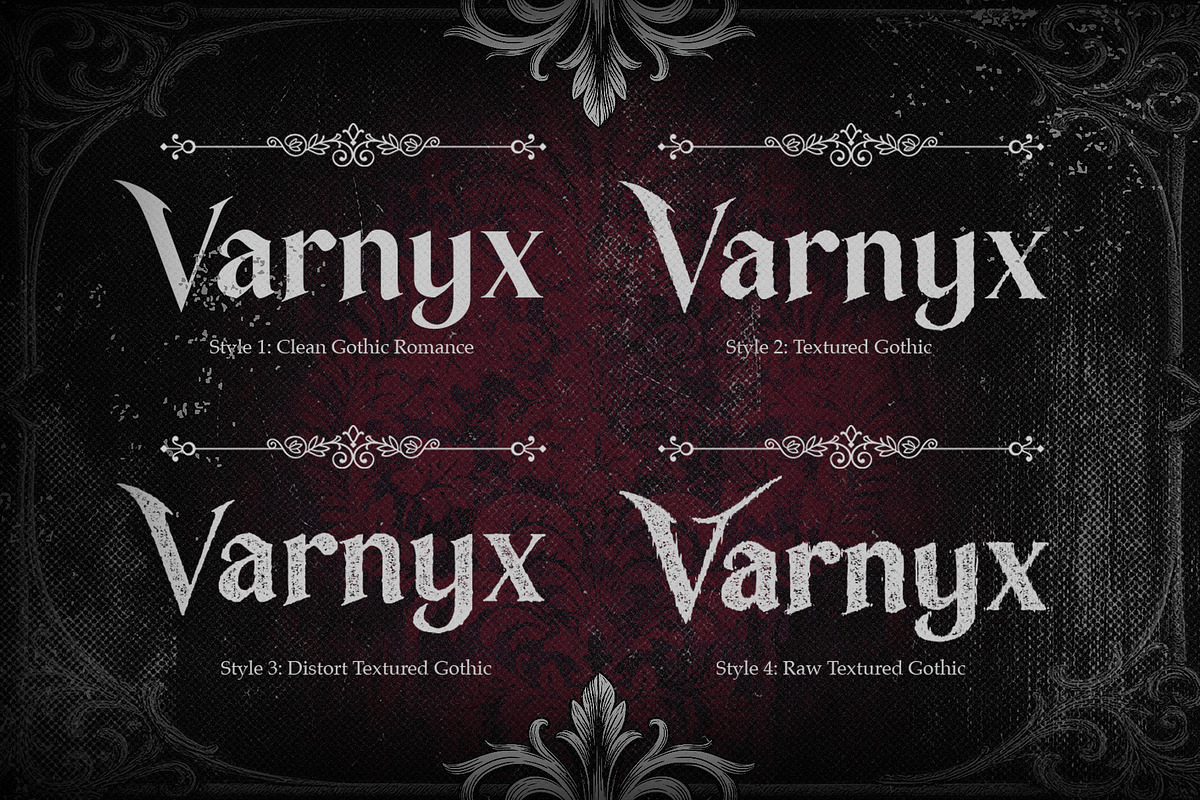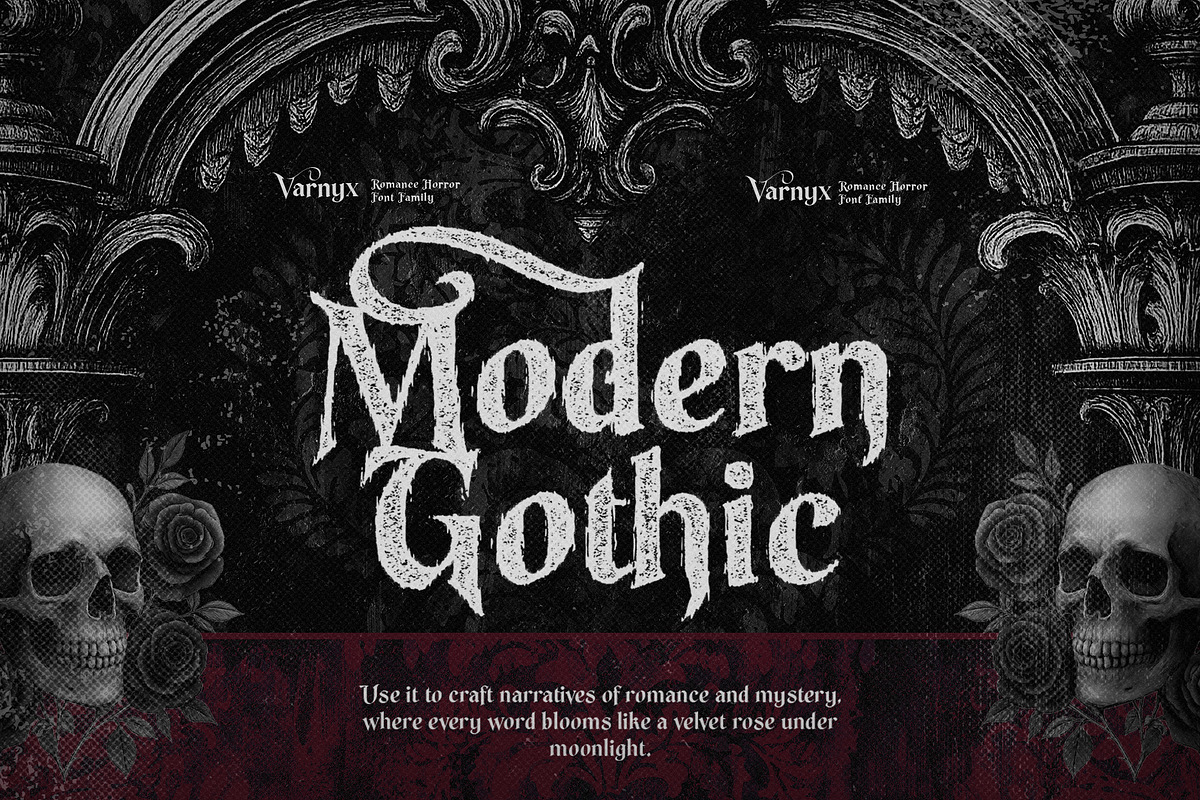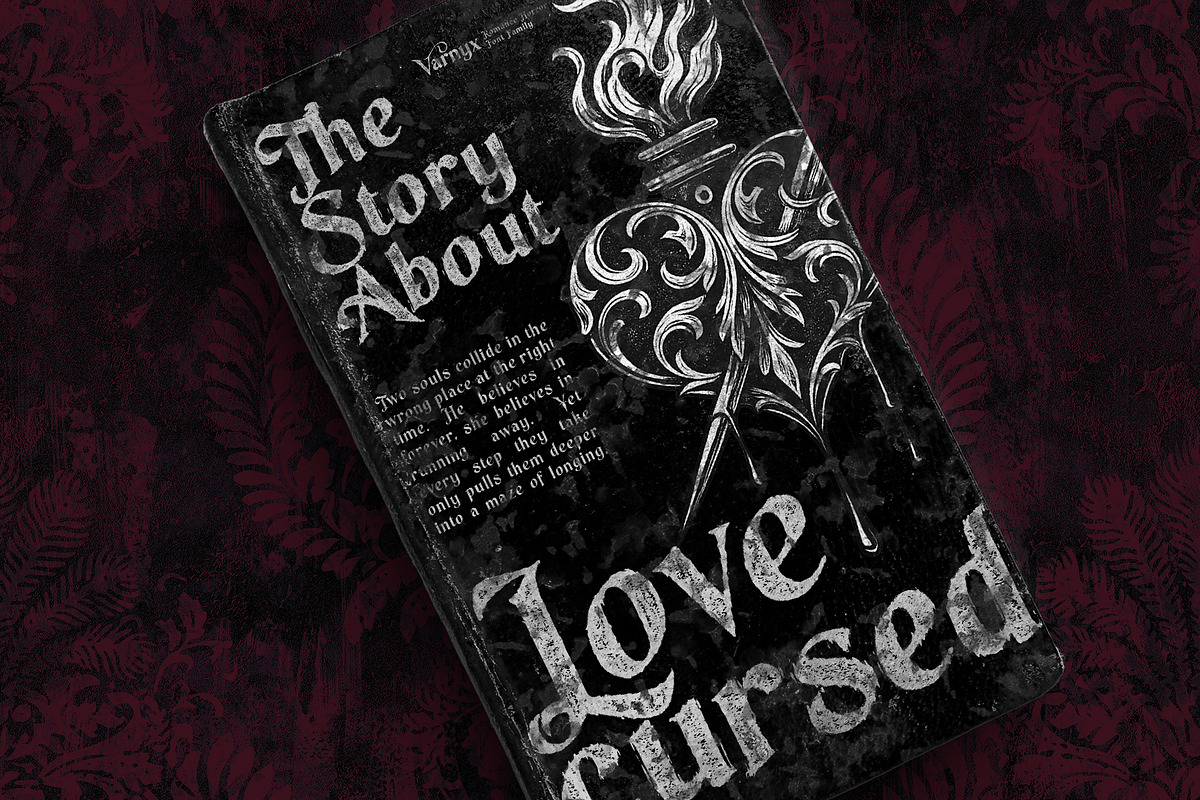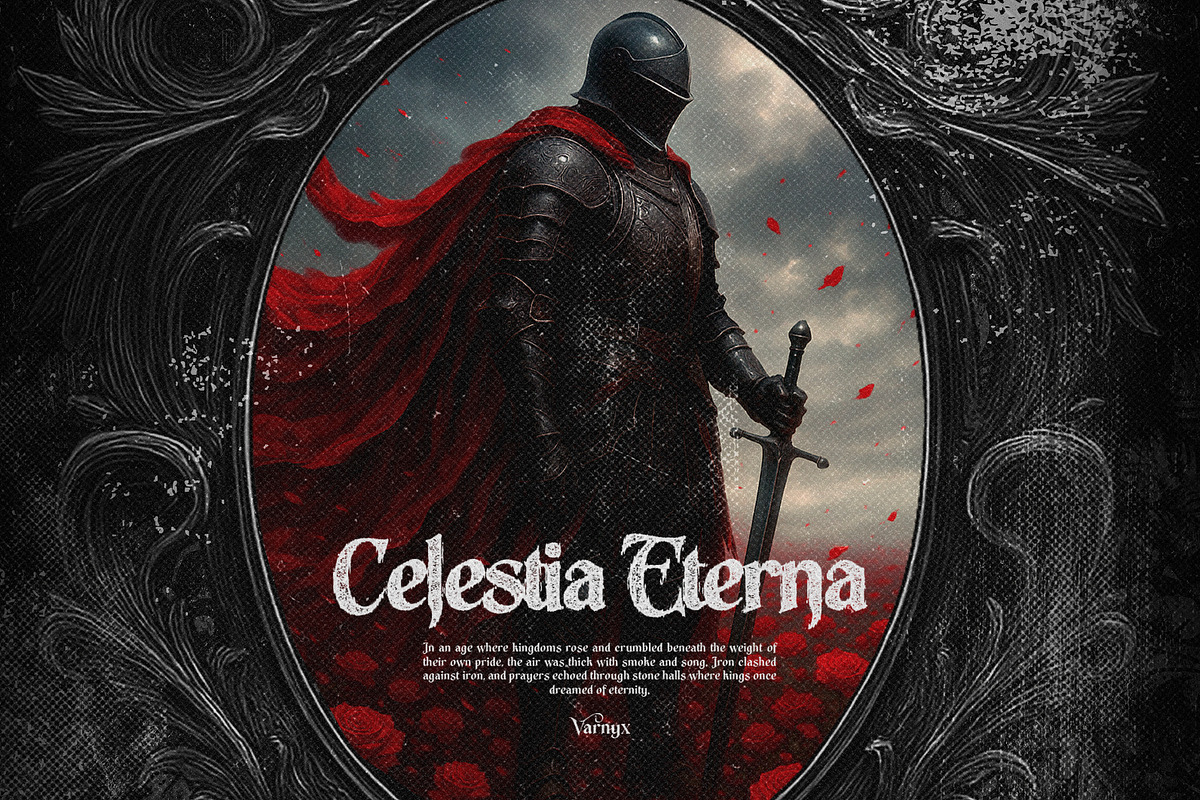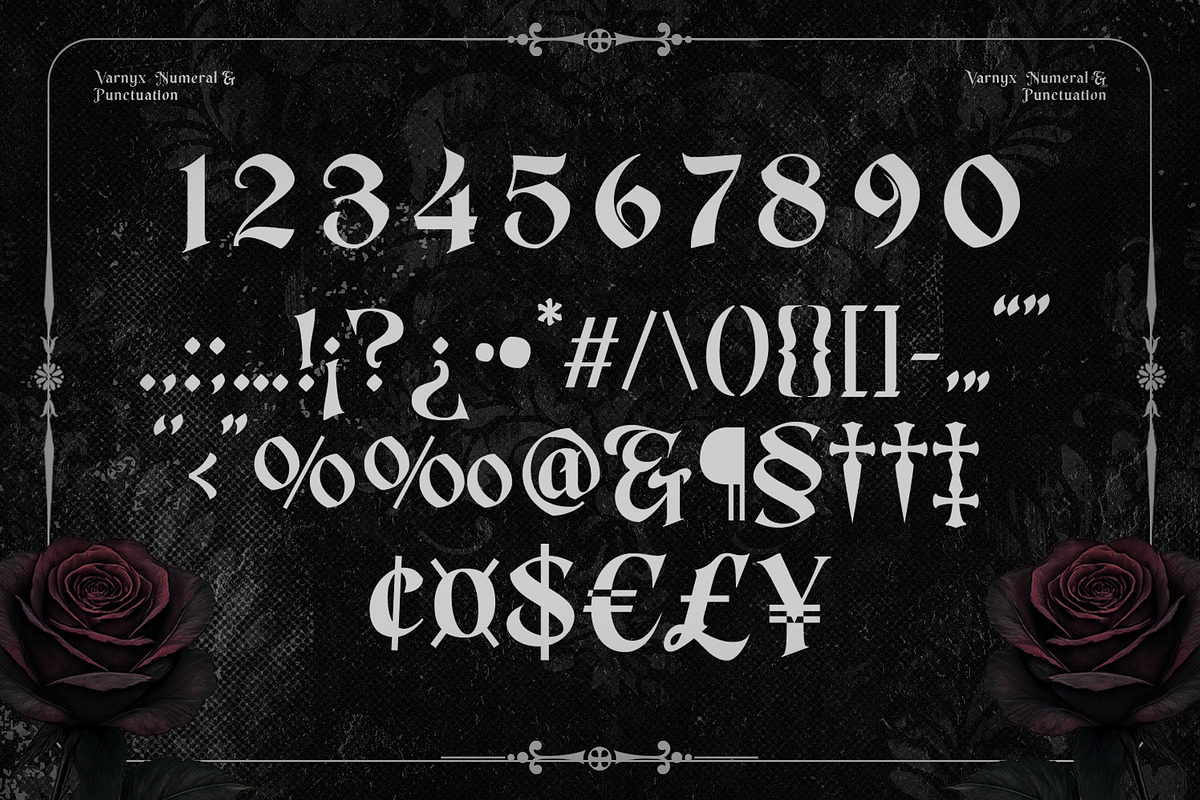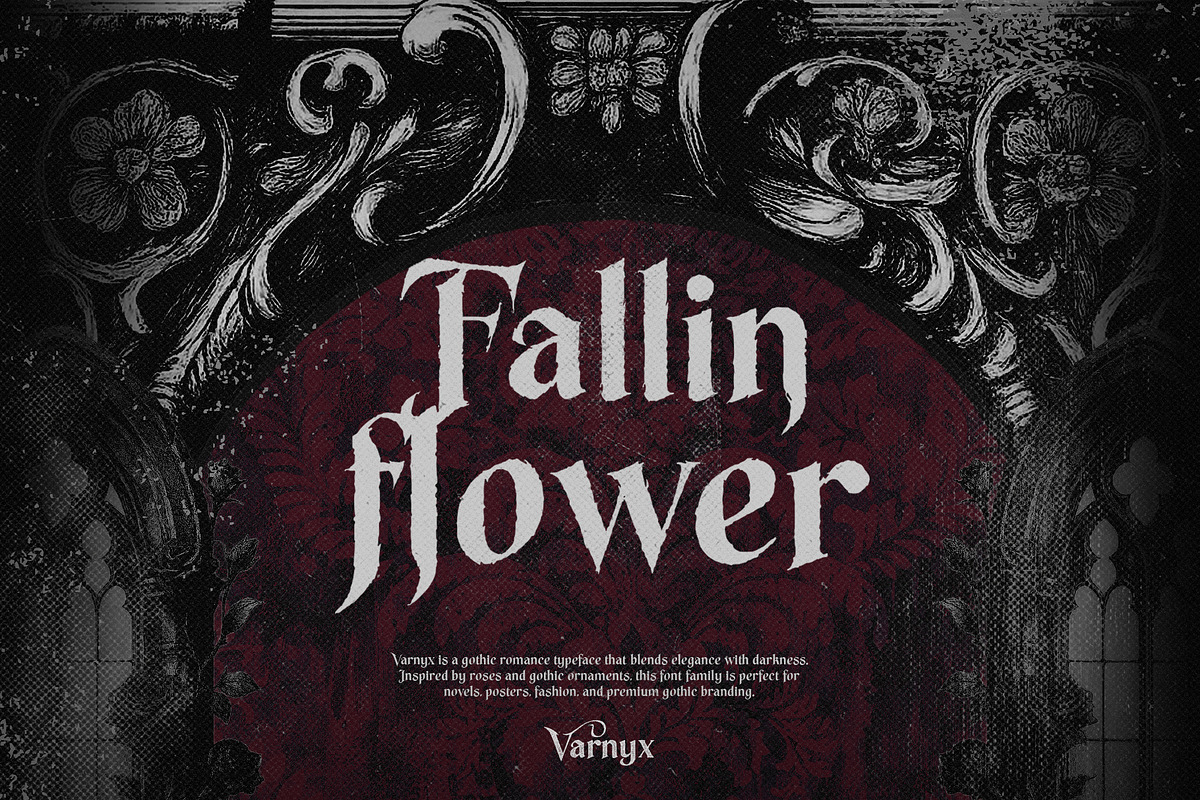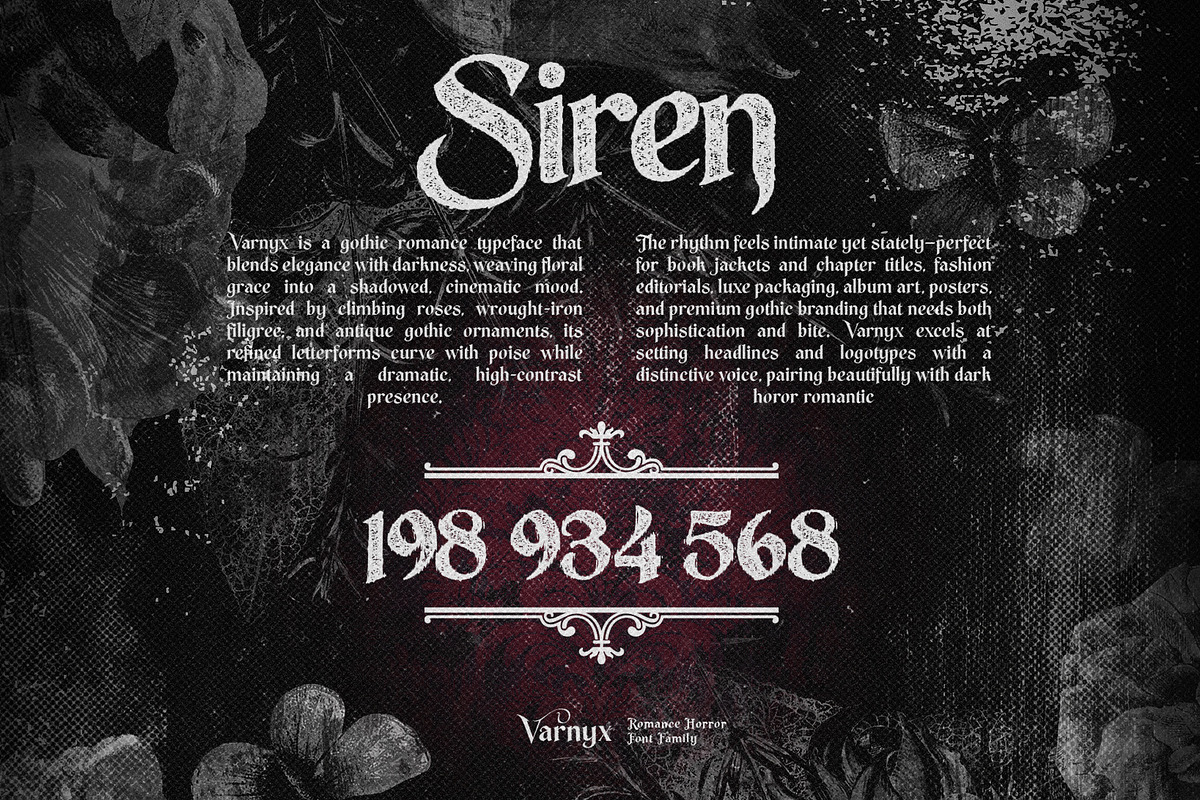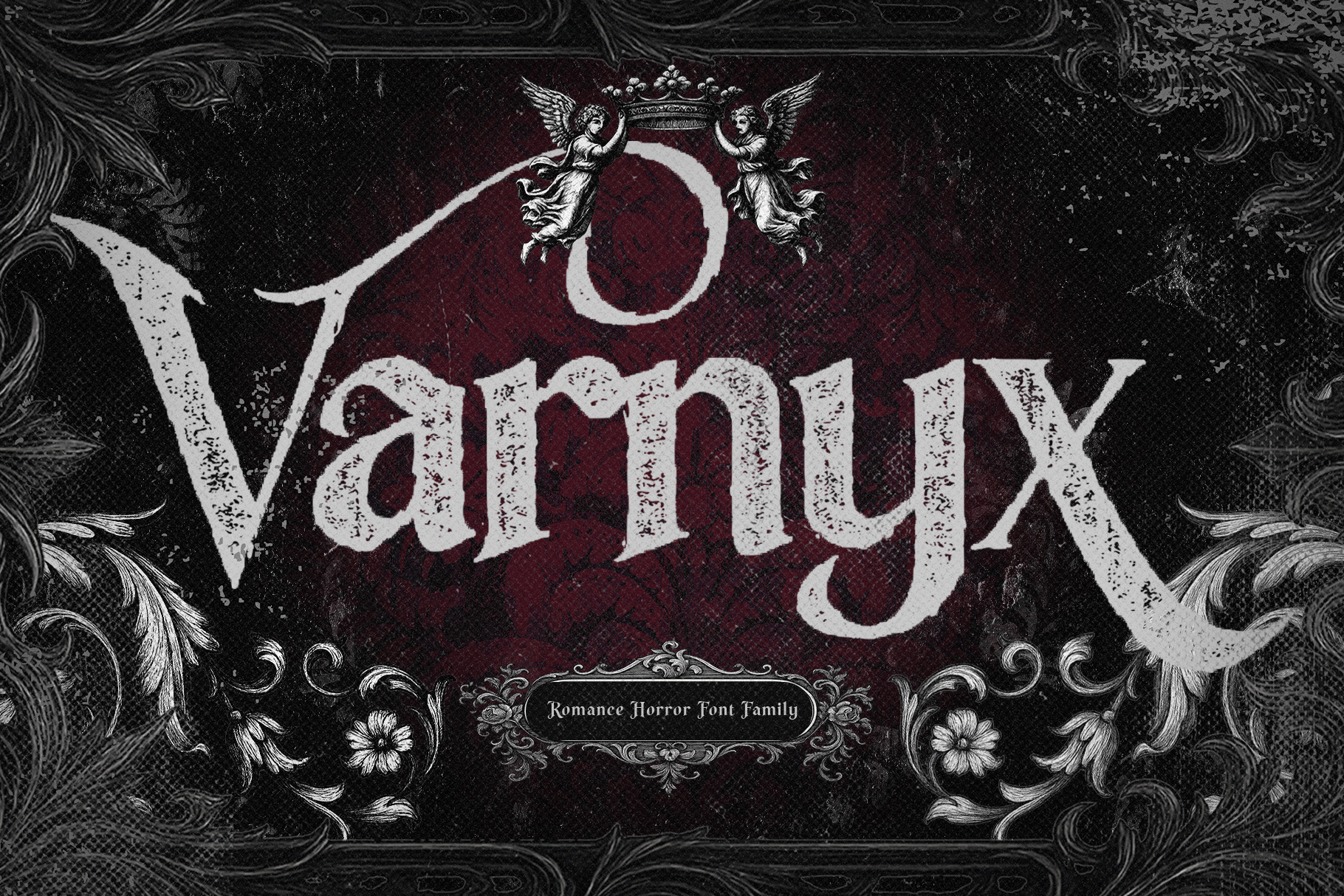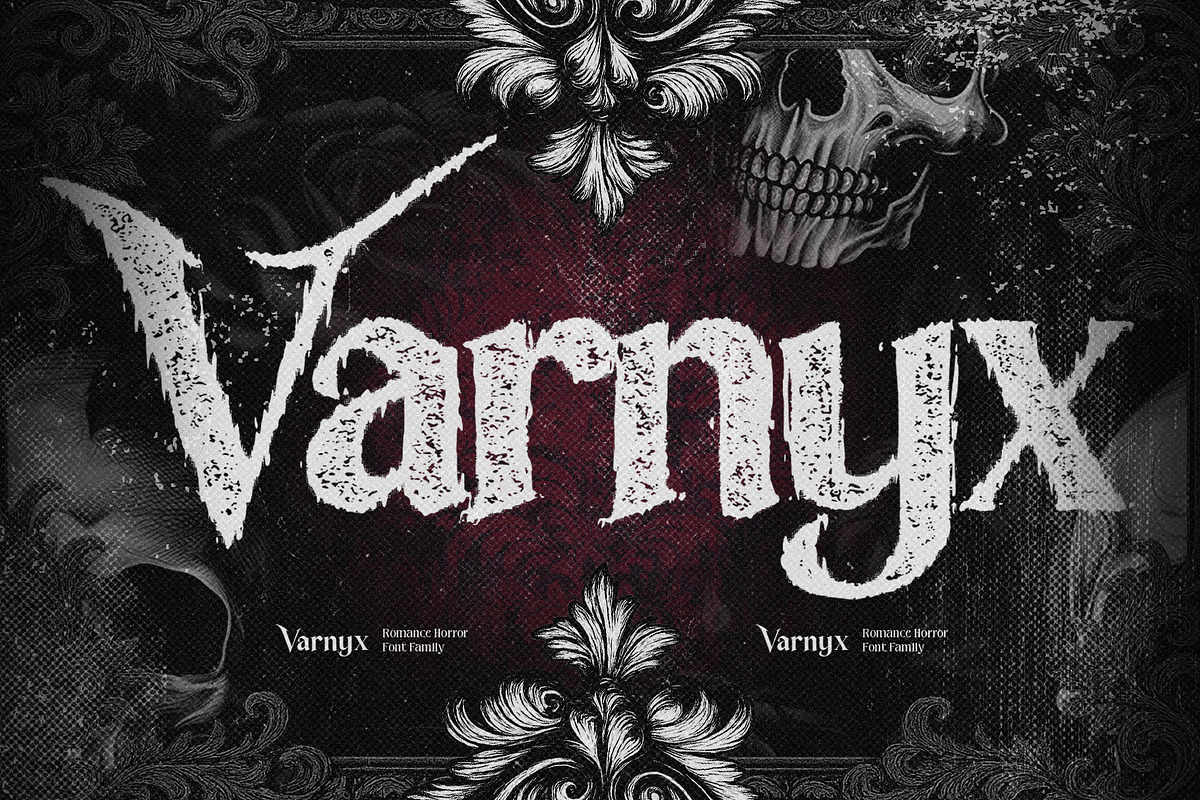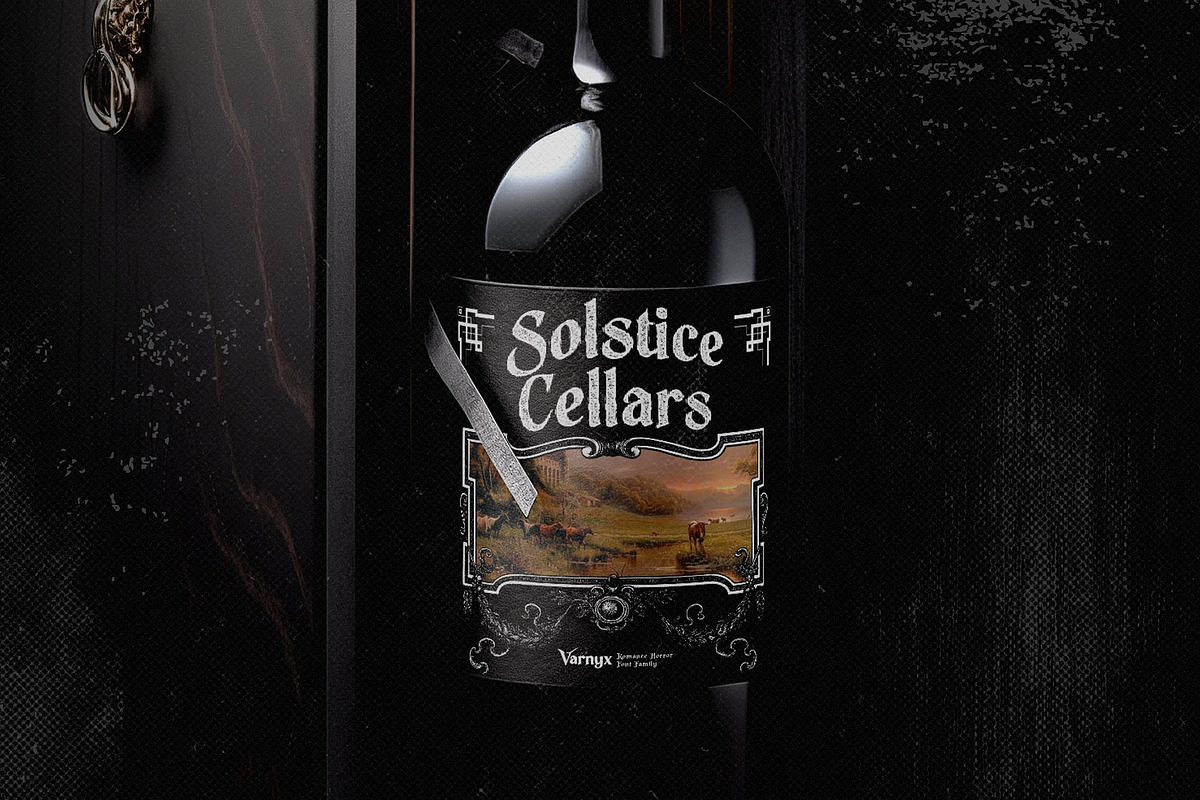
Varnyx - Romance Horror Font Family
Varnyx is a dramatic romance horror font family that blends gothic elegance with dark intensity. Inspired by medieval lettering, cathedral architecture, antique book covers, and velvet roses under moonlight, Varnyx brings a timeless yet haunting presence to your typography.
This typeface captures the feeling of forbidden love, tragic heroes, cursed kingdoms, and poetic darkness. The letterforms are sharp yet romantic structured with classic gothic influence but softened by subtle curves that give it emotional depth.
- Numerals & punctuation
- 4 Styles: Regular, Distorted, Distort Textured, Raw Textured
Perfect For :
- Gothic romance novels
- Horror movie posters
- Dark fantasy games
- Tattoo & occult-themed designs
- Music album artwork
- Halloween packaging
- Black metal or doom metal visuals
- Mystical product logos